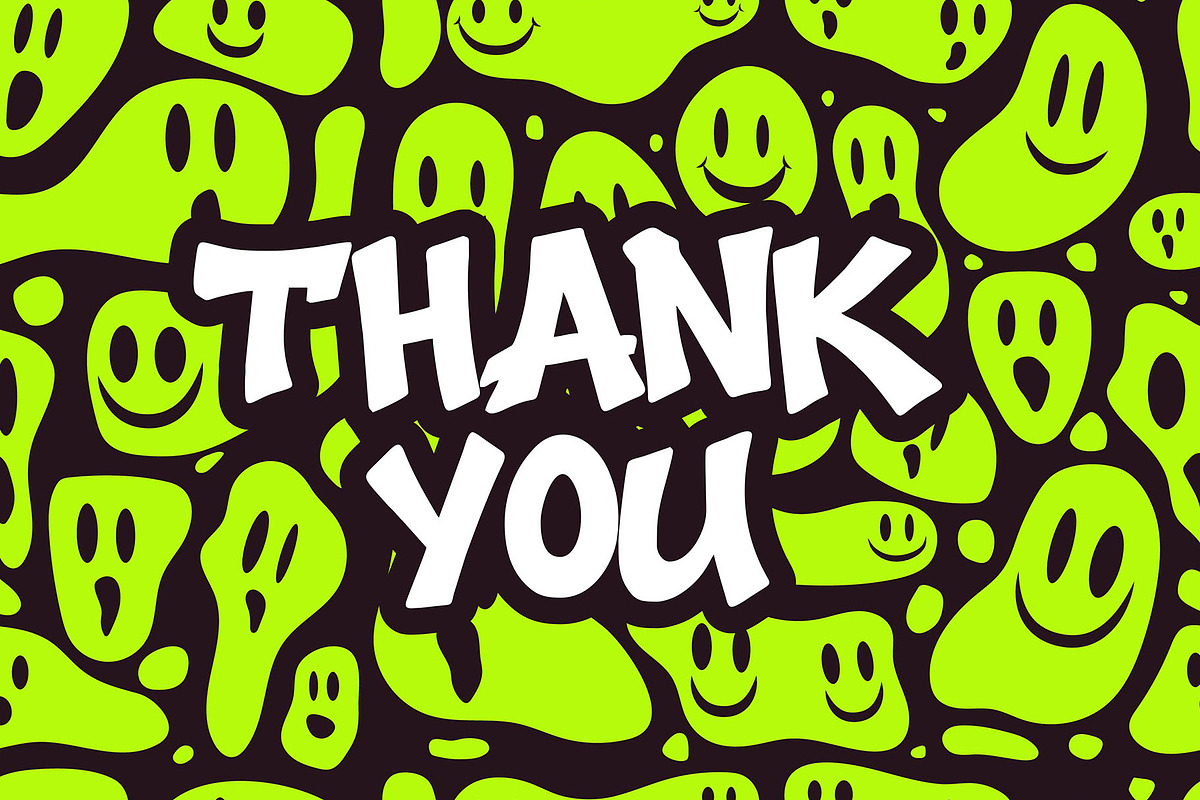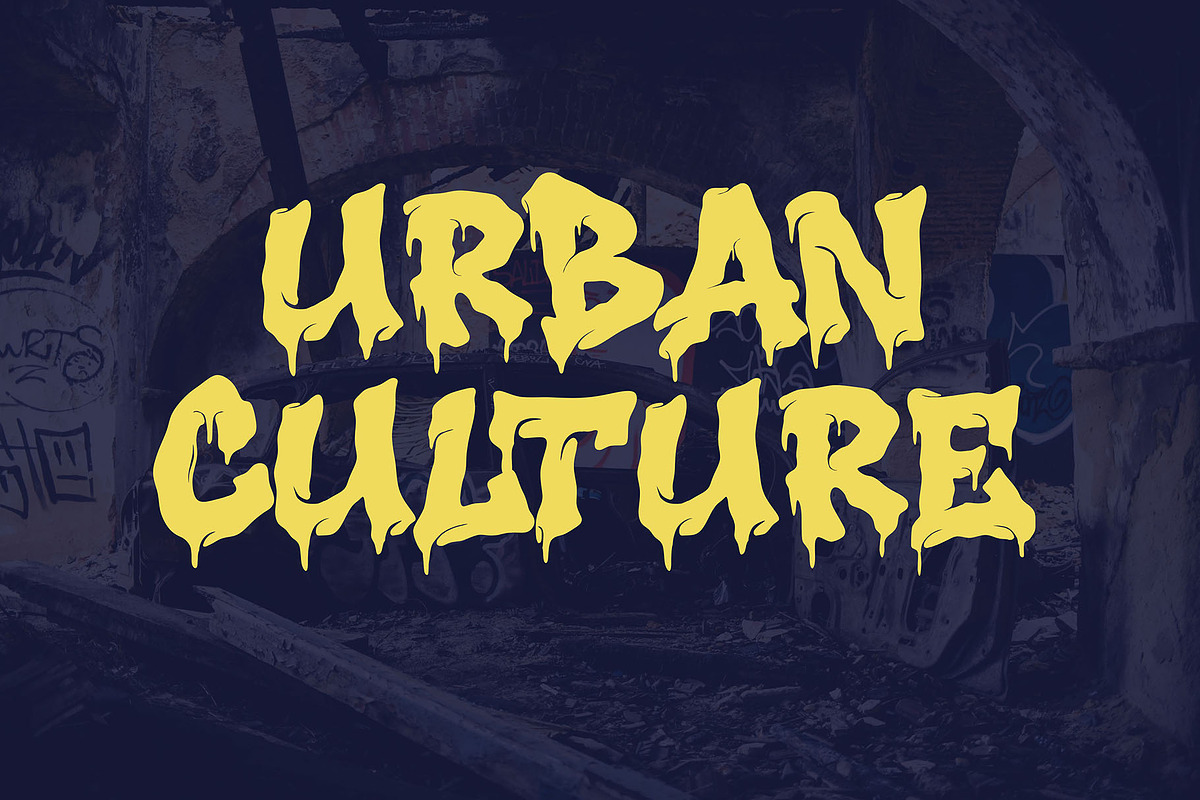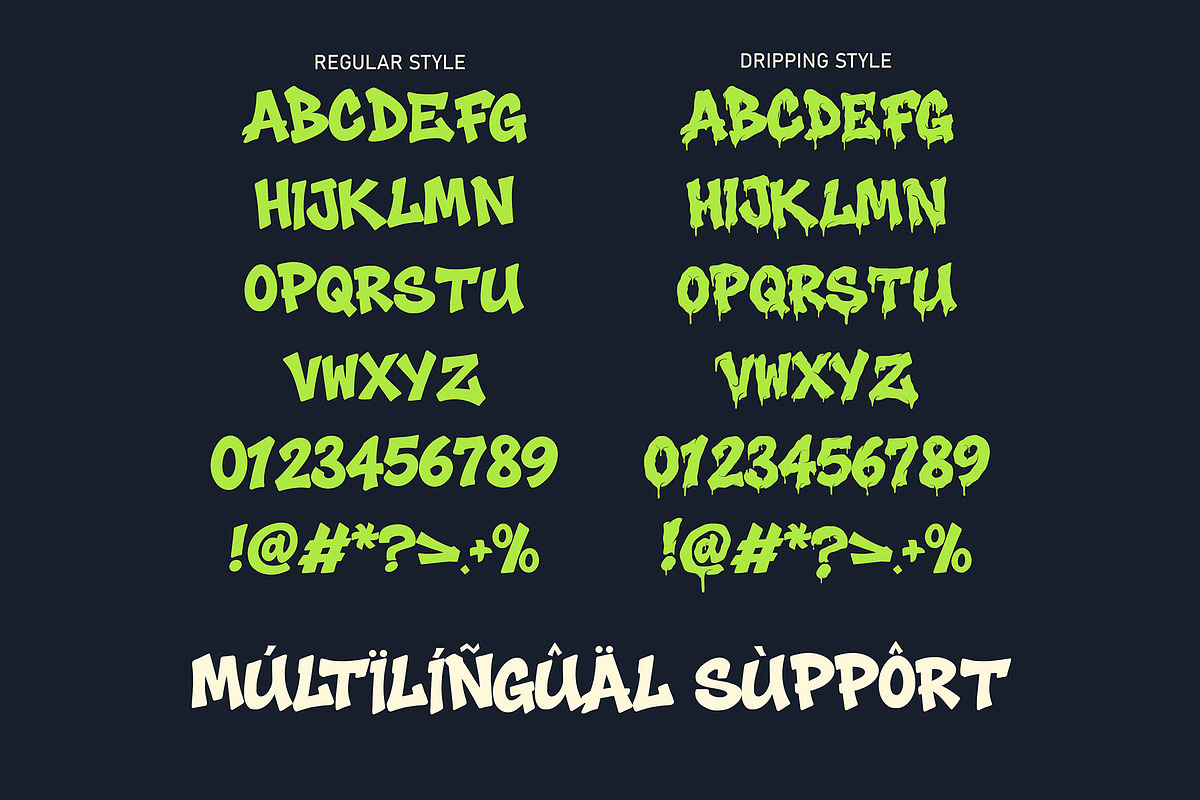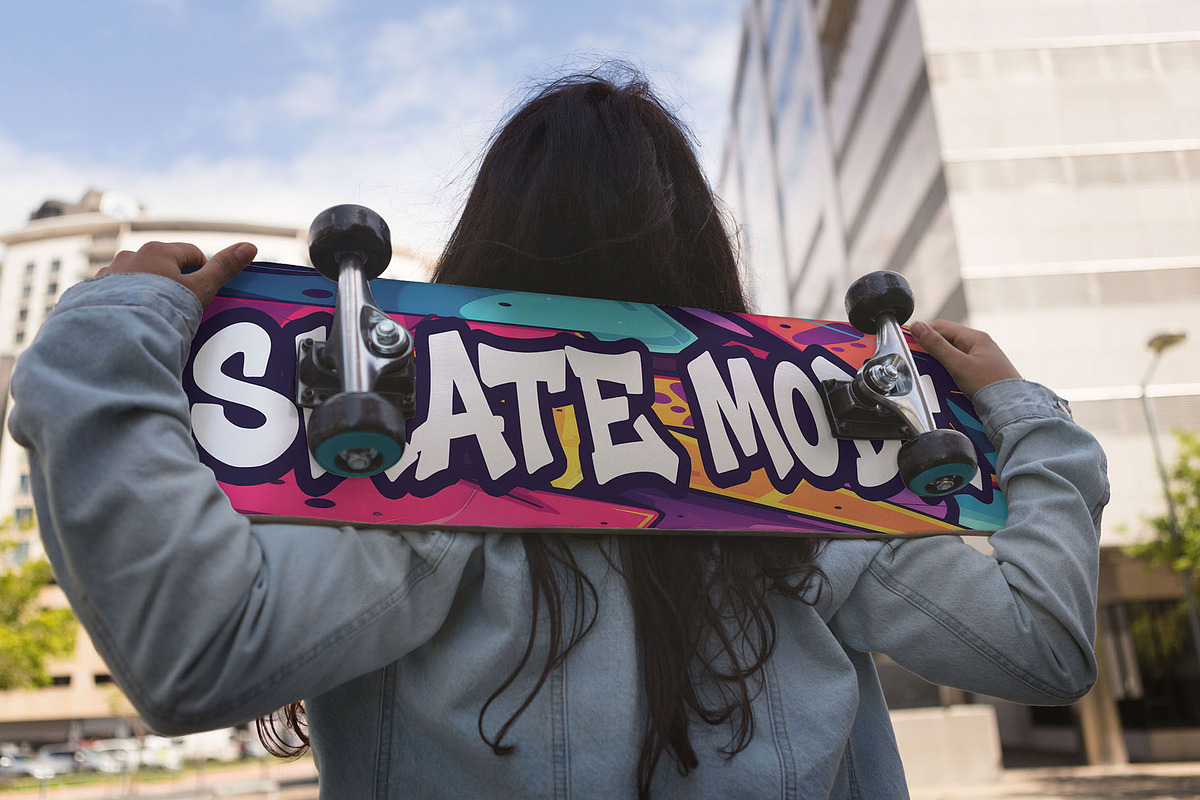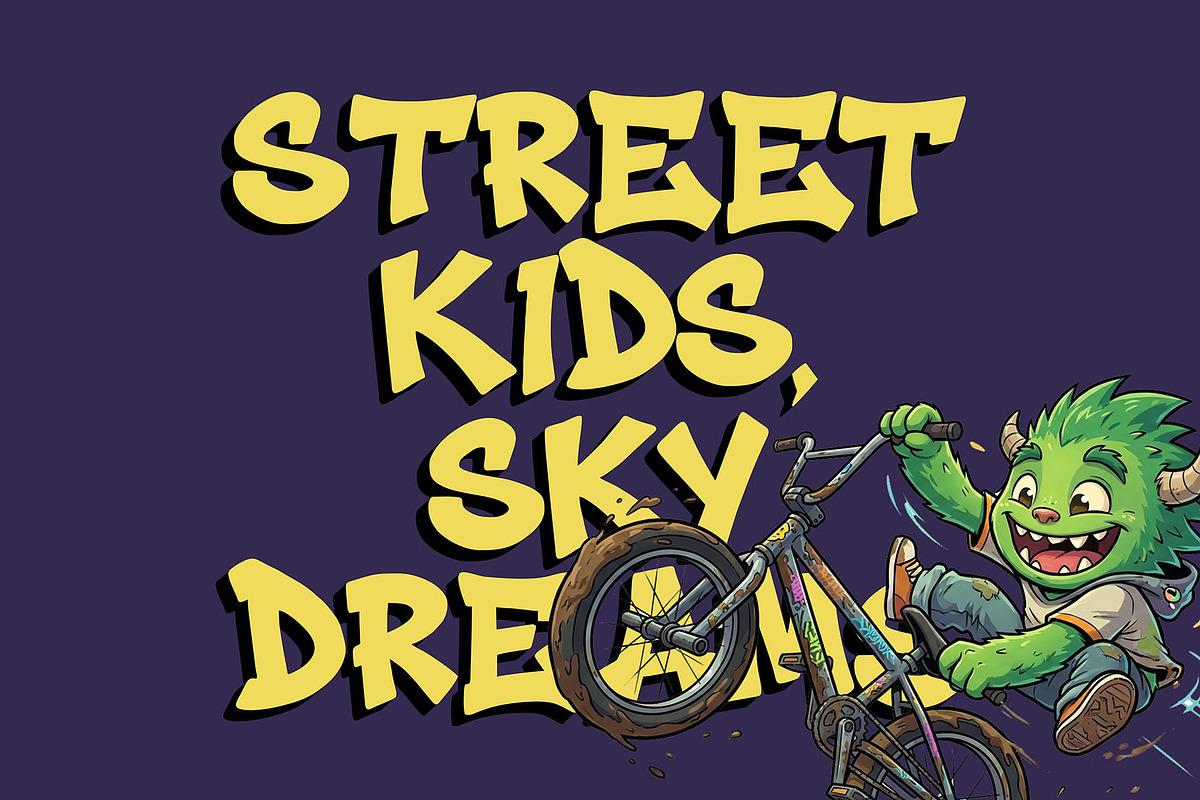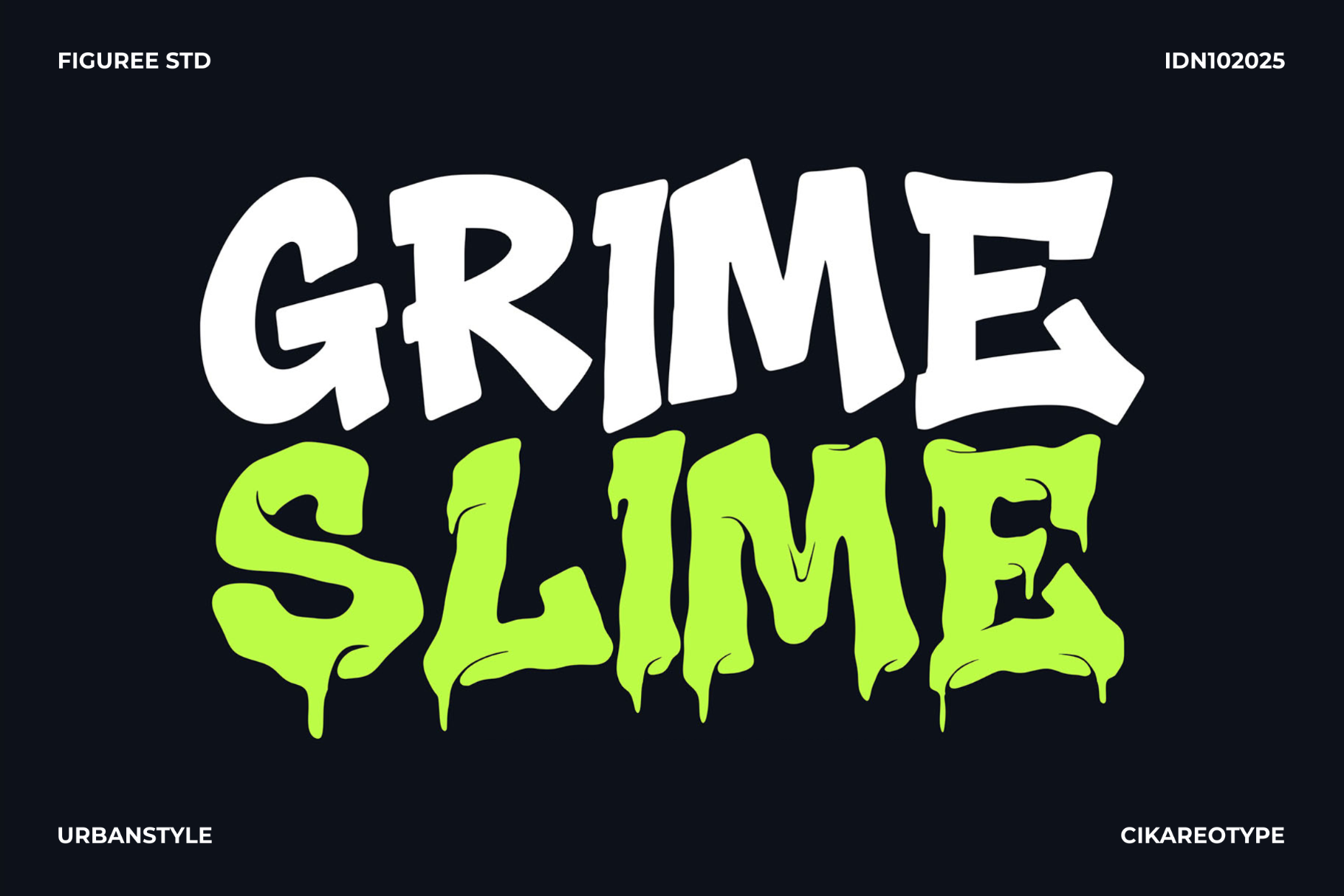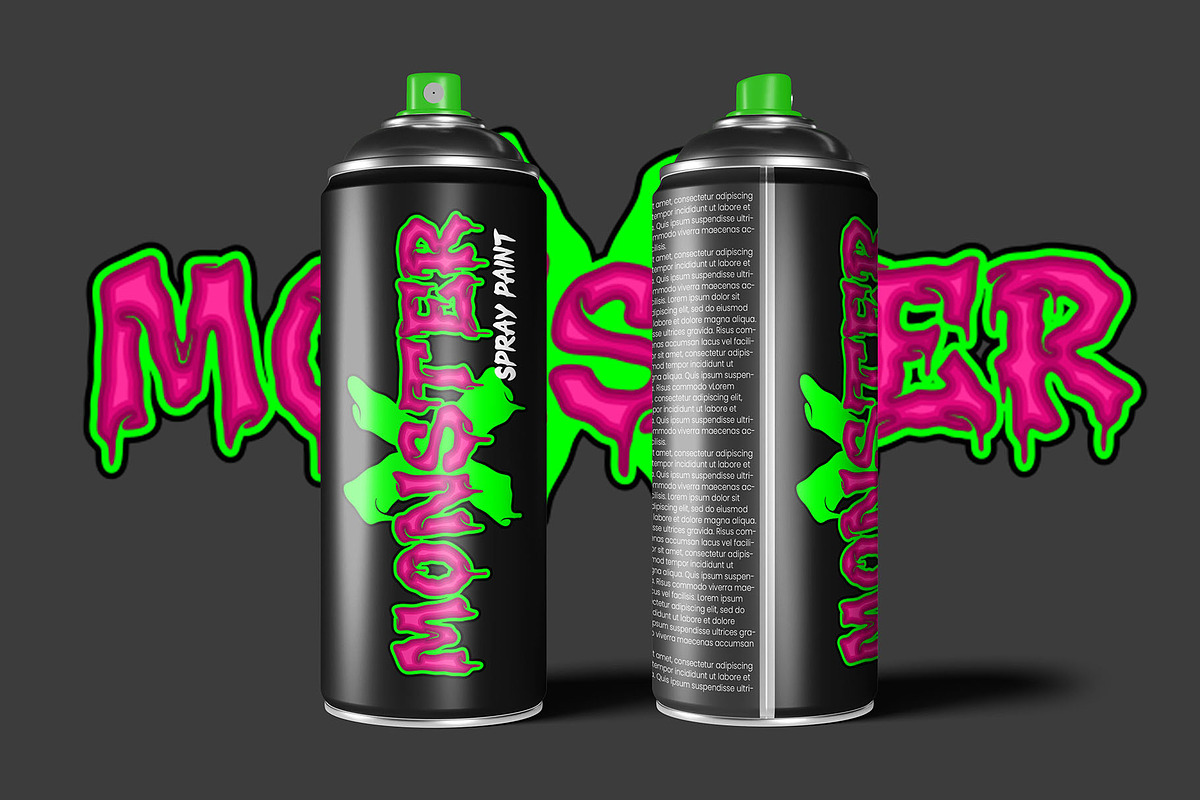
Grime Slime - Dripping Graffiti Font
Grime Slime – Dripping Graffiti Font is a bold display typeface designed to deliver strong visual impact through dripping graffiti letterforms. Built entirely in all caps, this font is created to support attention-focused layouts such as posters, titles, event materials, and high-contrast graphic compositions. Its rough edges and dripping details help communicate tension, energy, and intensity in a clear visual language.
This font is suitable for projects that require expressive typography with a gritty tone. From horror-themed posters and spooky invitations to game titles, YouTube thumbnails, and digital artwork, Grime Slime helps text stand out immediately. The included dripping style adds extra character for designs that need a more aggressive or unsettling atmosphere, while the standard version keeps layouts structured and readable.
With multilingual support, Grime Slime allows designers to use the font across a wide range of languages, making it suitable for international projects. The letterforms are crafted to remain legible at large sizes, ensuring consistent readability on both print and digital media.
All Caps Typeface for strong and consistent text layout
Multilingual Support for global design needs
Two Font Styles: standard and dripping version
Display Graffiti Style with expressive letter shapes
Optimized for Large Text such as headlines and titles
Easy Integration into posters, banners, thumbnails, and digital artwork
Designers choose Grime Slime for projects that require typography with character and impact. The dripping variant allows for visual emphasis in horror and spooky concepts, while the regular style provides balance when clarity is required. Its all-caps structure simplifies layout decisions and maintains visual consistency across designs.
The multilingual support makes it reliable for international use, and the included file formats allow seamless application across multiple platforms. Designers can quickly switch between the standard and dripping styles to adjust tone without changing the overall layout direction.
Grime Slime – Dripping Graffiti Font is a practical choice for designers who need expressive lettering with a gritty atmosphere. Whether used for posters, event flyers, digital titles, or graphic artwork, this font provides a clear and bold typographic voice. Add it to your font collection and use it to deliver strong visual statements across your creative projects.